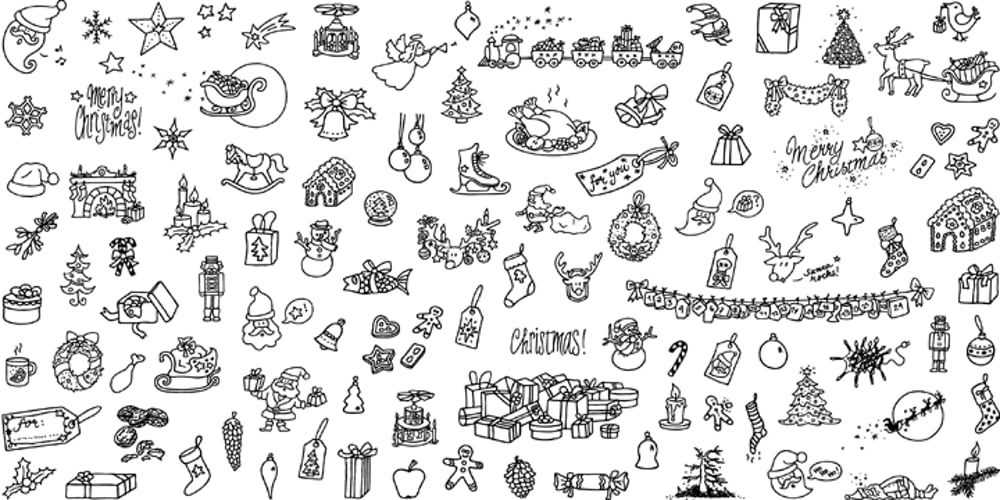
LiebeChristmas
LiebeChristmas font
LiebeChristmas Font Family was designed by Ulrike Rausch and published by LiebeFonts. LiebeChristmas contains 1 styles and family package options. LiebeChristmas is a hand-crafted collection of Santas, Rudolphs, gifts, treats and more Christmas items in countless variations and sizes. Create pretty Christmas greetings with a personal touch. Surprise your family and friends by printing individual cards for everyone. Decorate your blog or website for the holiday season. More than 100 carefully crafted drawings are included in this single font and can be used in any text or graphics application. How about creating your own wrapping paper with LiebeChristmas patterns? Or how about making Christmas cards in combination with our popular typeface LiebeErika?